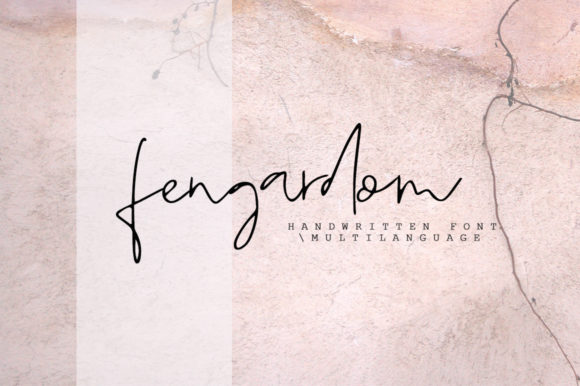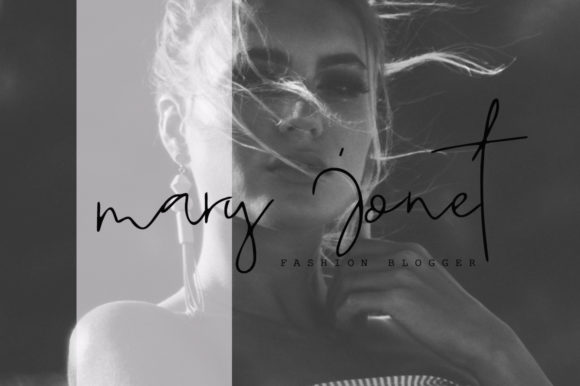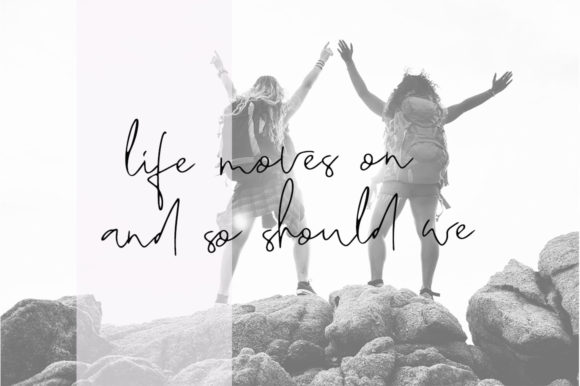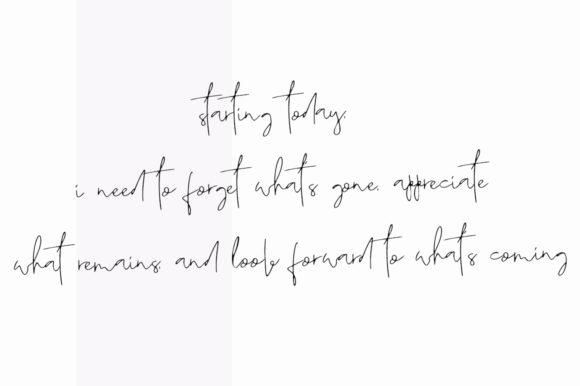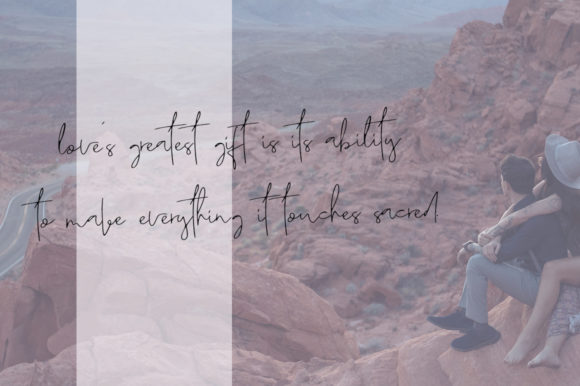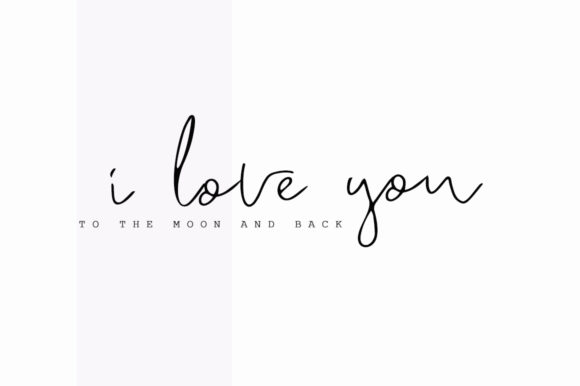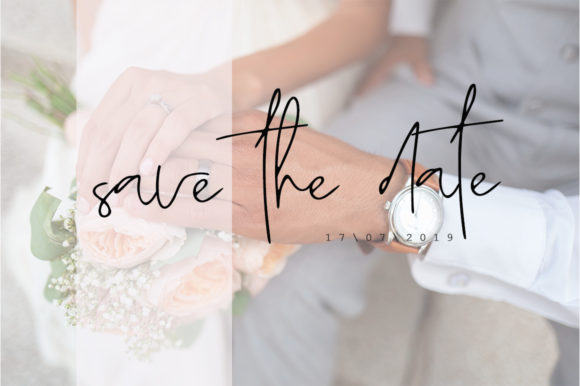
Fengardom Font
About Fengardom Font
The Fengardom is a casual handwritten font. Every single letters has been carefully crafted to give your design a modern touch.
It’s perfect for logos, photography, watermarks, quotes, blog headers, posters, wedding, branding, logos, fashion, apparel, letters, invitations, stationery, and much more!